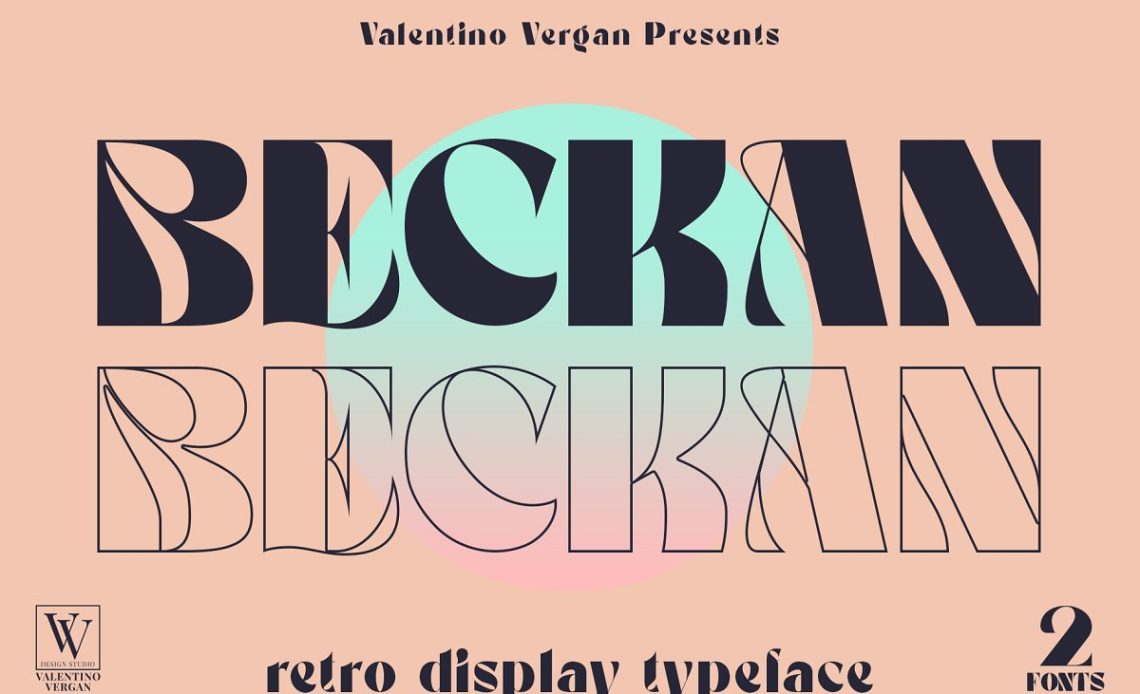
Looking for the best font for your menu website or next project? Look no further than Beckan, the retro inspired typeface created by Valentino Vergan. With its high-contrast and thin hairline, Beckan exudes a bold and modern retro look that will make your project stand out.
Beckan comes in two styles, Regular and Oblique, and can be paired with a minimal sans serif or light script font for a unique and eye-catching combination. But don't let its retro style fool you, Beckan is incredibly versatile and can cover a wide range of projects such as branding, mastheads, magazines, logos, Facebook banners, Instagram posts, websites, blog posts, pull quotes, product packaging, advertisements, and much more.
But why choose Beckan over other fonts? Not only does it have a unique retro look that will catch your audience's attention, but it also brings a touch of elegance and sophistication to your project. Its Art Nouveau style is sure to evoke emotion and make a lasting impression on your audience.